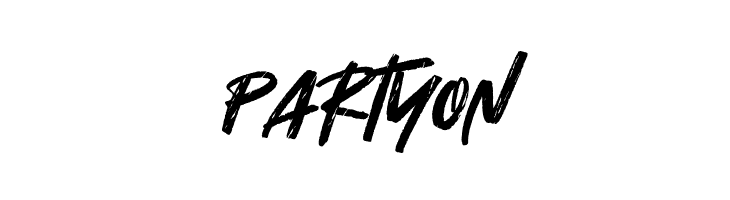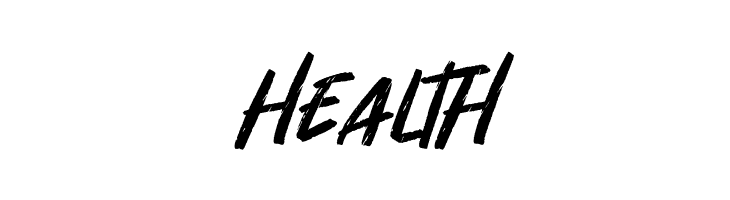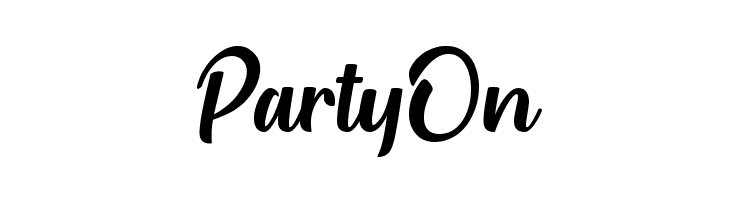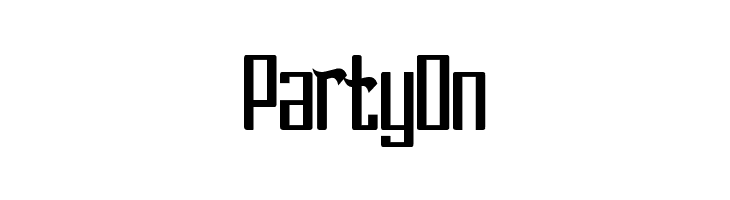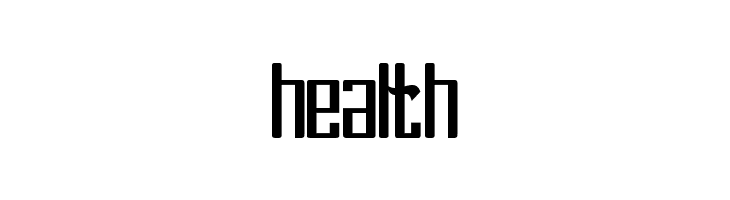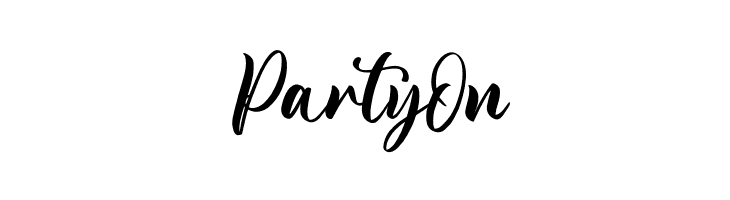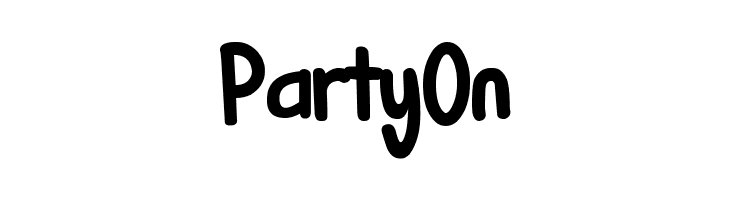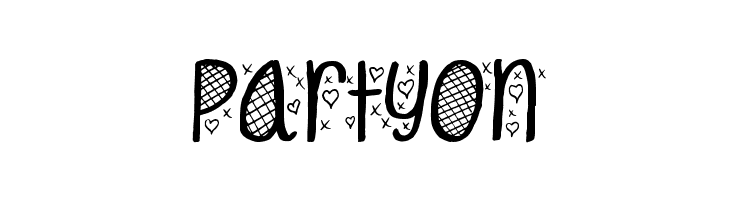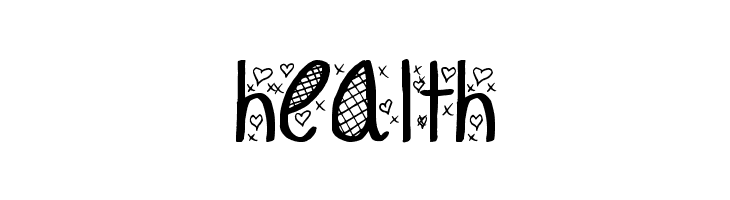
A bold, angular font with a futuristic and geometric style.
A dynamic and flowing script font with elegant curves and a handwritten appearance.
A playful, decorative font with heart motifs and bold, whimsical characters.
A bold, brush-style font with dynamic, expressive strokes.
A bold, dynamic brush script font with expressive strokes.
A lively and elegant script font with flowing, cursive letters and dramatic flourishes.
A playful, bold font with rounded edges and a hand-drawn aesthetic.
A bold, geometric font with a modern and impactful design.